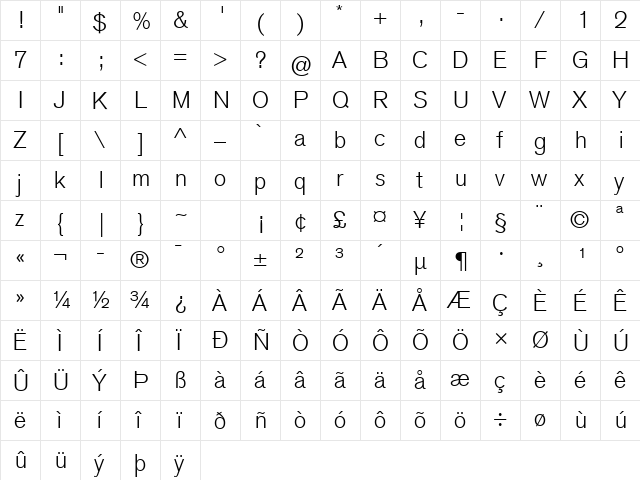
Basic Commercial LT Com Light
| Foundry | Linotype GmbH |
| Designer | Linotype Design Studio |
Design Context for Basic Commercial LT Com Typeface
Basic Commercial LT Com takes a measured approach to typography — its balanced proportions and neutral character make it a reliable workhorse for both digital and print work. The delicate stroke weight brings airiness and refinement to layouts.